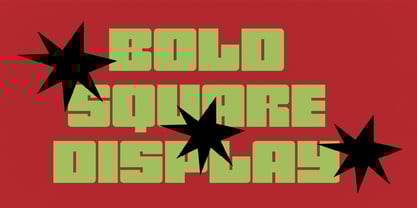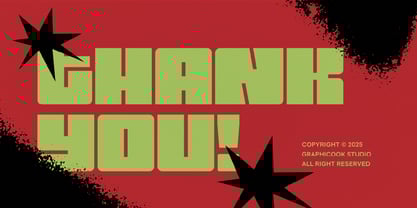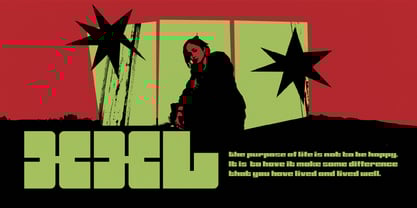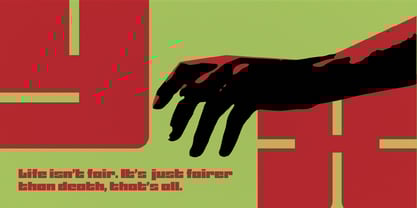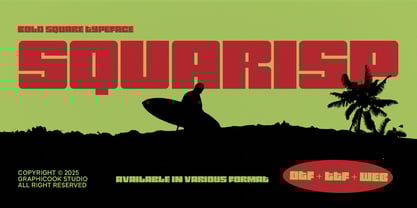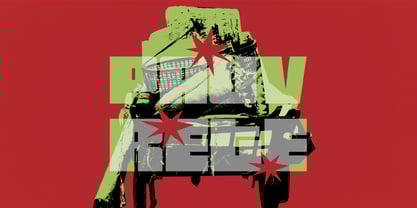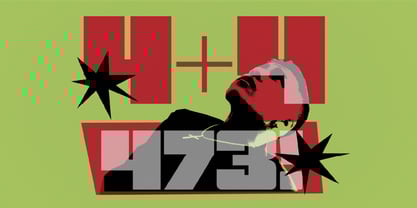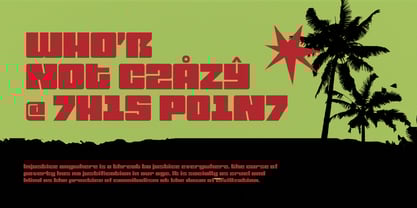
Cook Squarisp
by Graphicook Studio
The Cook Squarisp Font Family was designed by Gumilar Febriansyah and published by Graphicook Studio. Cook Squarisp contains 1 styles. More about this family
Squarisp is an experimental square font with a bold, modern hypebeast style, crafted to deliver powerful and impactful visuals. Its strong personality makes it an excellent choice for headlines, logotypes, magazines, packaging, quotes, movies, games, album covers, book covers, and flyers—perfect for creating eye-catching designs that truly stand out.
Designers: Gumilar Febriansyah
Foundry: Graphicook Studio